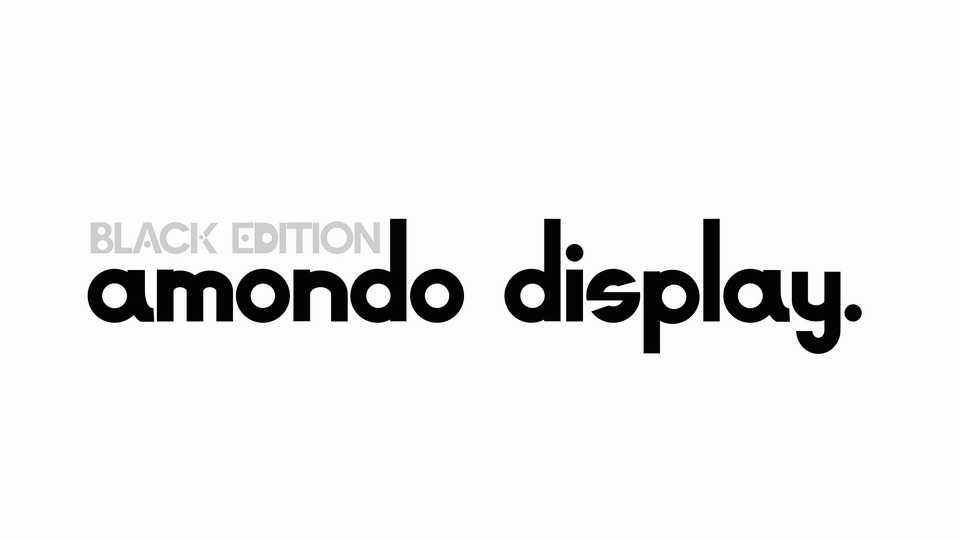
Download Amondo Display Black font, a contemporary geometric typeface with a strong personality. Amondo Display will be suitable for many creative projects, logos, posters, headlines, lettering, branding, magazines and other artworks.